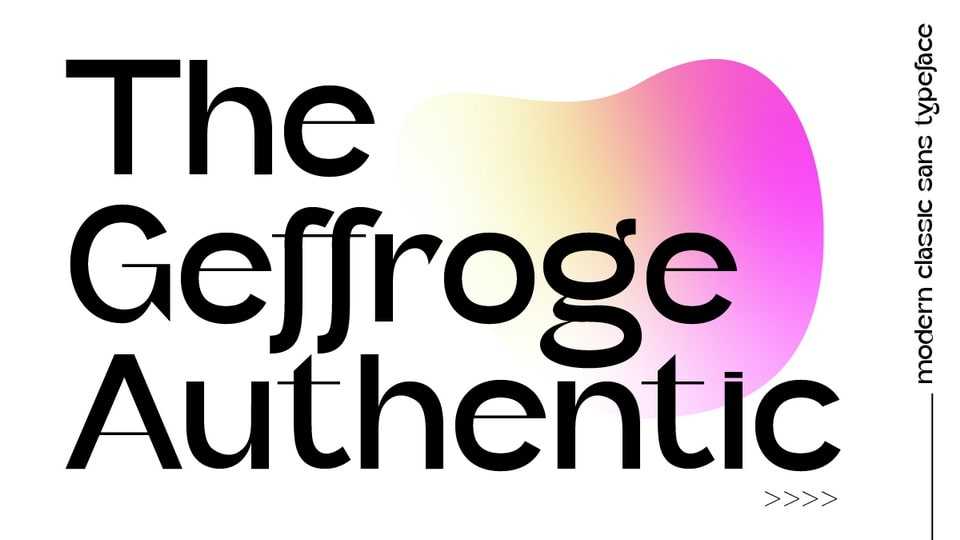
Download Geffroge Authentic font, a contemporary high contrast sans serif typeface. Geffroge Authentic font is impressive and features a clean and modern look, professionally shaped, and as a result, it will easily match a variety of creations that require a different touch.